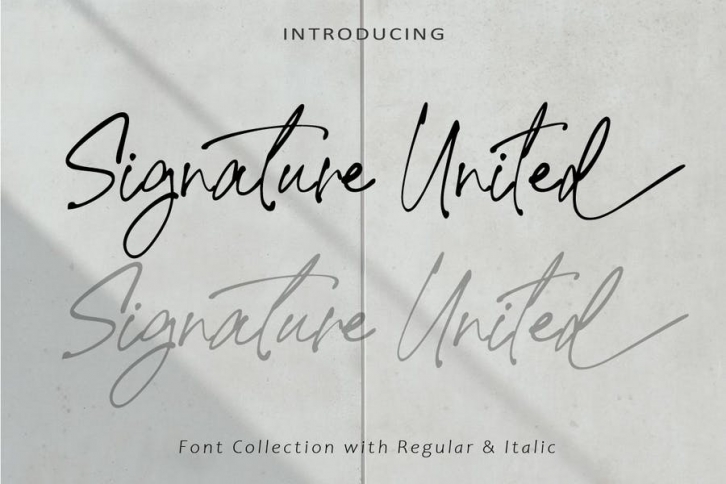
Signature United is a beautiful and stylish handwritten font. It looks beautiful on a variety of designs requiring a personalized style.
This font is great for your creative projects such as watermark on photography, and perfect for logos & branding, photography, invitation, watermark, advertisements, product designs, stationery, wedding designs,label, product packaging, social media, movie titles, books titles, a short text even a long text letter and good for your secondary text font with sans or serif. And also for special events or anything that need handwritting taste.
• Regular & Italic
• Standard glyphs
• Ending Swash, Ligature
• Multilingual